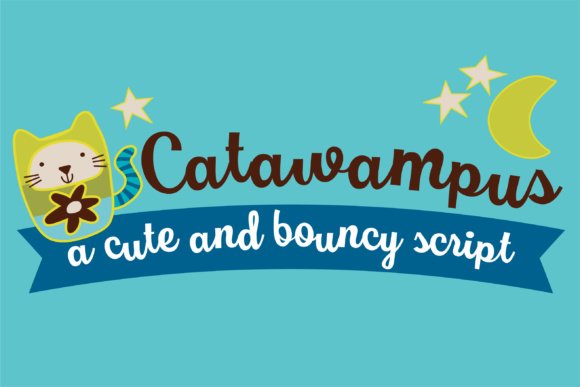
Unleashing Whimsy with the Catawampus Font
Have you ever found yourself doodling in a notebook, lost in a world of creative expression? You’re not alone. For many designers, those carefree moments of scribbling and experimenting are where the magic happens. It’s in these moments that a new font might be born, like the Catawampus Font – a fun and playful script font that’s equal parts quirky and charming.
The Catawampus Font is designed to bring a touch of whimsy to any project, with its bouncy baseline and mix of thick and thin letters. Its purpose is to add a dash of personality to designs that might otherwise feel flat or generic. And for designers, this font is a valuable addition to their toolkit – offering a fresh way to convey emotion and character in their work.
Catawampus Font Key Features
- Font Family: Catawampus Font is a unique, hand-drawn typeface designed for use in various digital applications.
- Unique Characteristics: This font features a distinctive, irregular design with unique letterforms and a hand-crafted feel, making it perfect for adding a touch of personality to designs.
Catawampus Font Review
I recently had the chance to work with the Catawampus font, and I have to say, it’s a unique and intriguing addition to any design project. ✨ Here are some of its strengths:
- Unconventional style: Catawampus offers a distinctive look that can add visual interest to your designs.
- Customizable: The font comes in various styles and weights, allowing you to tailor it to your specific design needs.
- Support for multiple languages: Catawampus supports a wide range of languages, making it a great choice for international designs.
However, like any font, Catawampus has its limitations: ⚠️
- Difficult to read at small sizes: The font’s unique style can make it challenging to read at smaller font sizes.
- Limited availability in some software: Catawampus might not be available in all design software or platforms, which can cause compatibility issues.
- Not suitable for body text: Due to its unconventional style, Catawampus is best suited for headlines or titles, rather than body text.
Overall, I think Catawampus is a great addition to any designer’s toolkit. While it may not be the most versatile font, it can add a unique touch to your designs. With careful selection and use, Catawampus can be a valuable asset in your design arsenal.
Getting the Most Out of Catawampus Font
For the best results, use Catawampus Font in bold or italic styles to emphasize text. Experiment with different font sizes to create visual hierarchy. Consider pairing Catawampus Font with a clean sans-serif font for a unique and eye-catching design.
Catawampus Font is ideal for:
– Creative projects, such as posters, flyers, and brochures.
– Branding and identity design, such as logos and business cards.
– Social media graphics and online content.